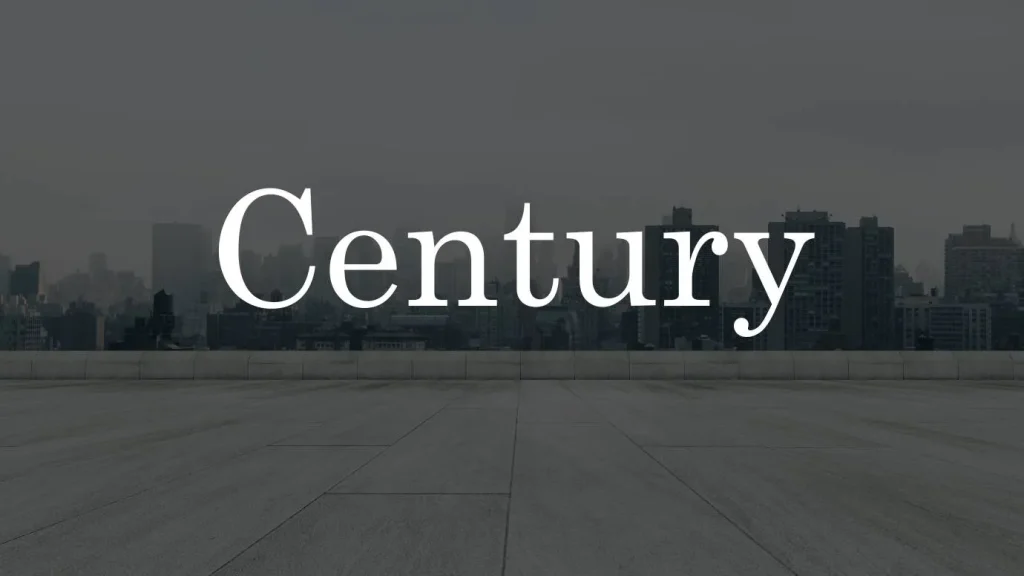
The text style is flawless as long as each design demands a fun and unusual feel. There are a variety of ways to use this style for social media posts.
Century Font features have a traditional feel with a unique design. It contains both upper- and lower-case letters, numbers, and some punctuation marks.
The text style is flawless as long as each design demands a fun and unusual feel. There are a variety of ways to use this style for social media posts.
This typeface could be an awesome choice for any venture that needs a touch of elegance. You'll produce this typeface from the online text style generator tool. The font corresponds to often utilized by creators to create their designs look lovely.
This piece is ideal for any design that needs a bit of uniqueness and fun the style of the font matches the tone of the design. This typeface has elegant glyphs and signs. It can be used for more animations or bright and exciting projects.
This typeface is also appropriate for logo design projects involving individual information. As a means of evaluating the typeface, we selected 31 special characters, letters in upper and lower case, and the digits 0 to 10. Regardless of whether you view or print the letters, they will remain the same.
This typeface is additionally unique to work for your features and titling for your websites, brands, Because the look is extremely amazing. It is extensively utilized to create beautiful backgrounds.
The typeface is often utilized by many creators to generate their designs in a lovely manner. Because the look is extremely amazing. It is extensively utilized to create beautiful backgrounds.
You'll be able to have this typeface into a CSS record for creating eye-catchy website content. In addition to creating posters, social media posts, and animated logos, you can also use this typeface.
A design can be used to create interesting covers, shop names, logos and websites. As well as branding projects, houseware designs, and packaging.